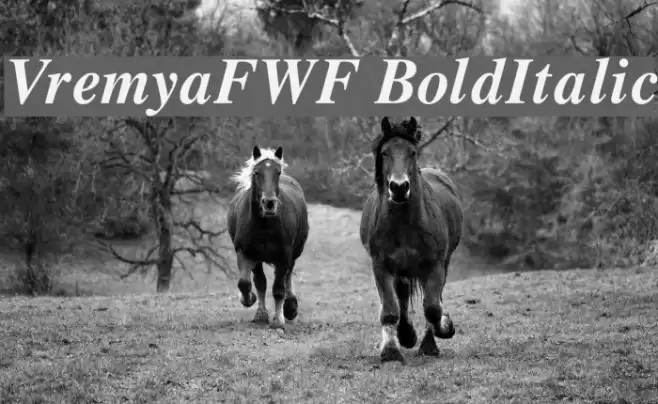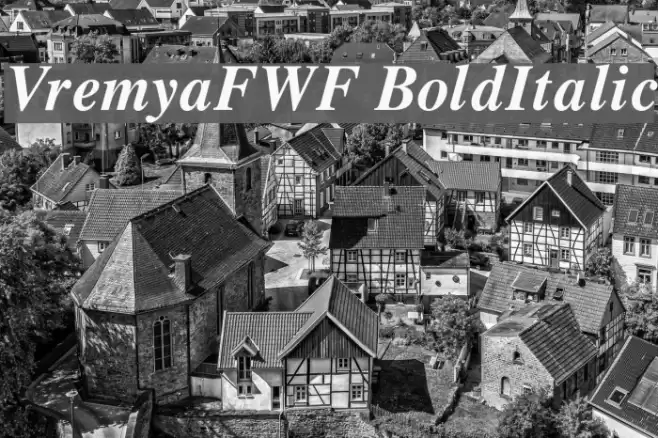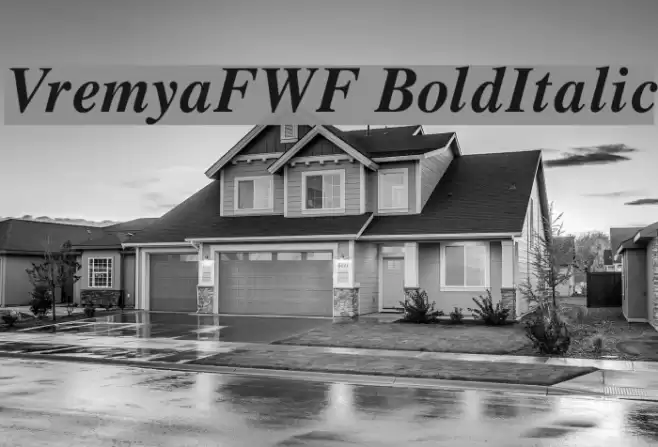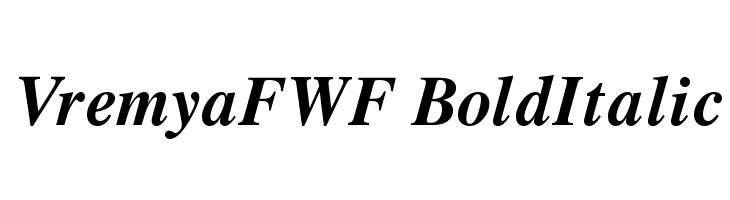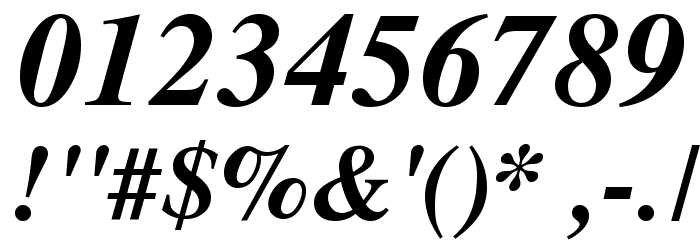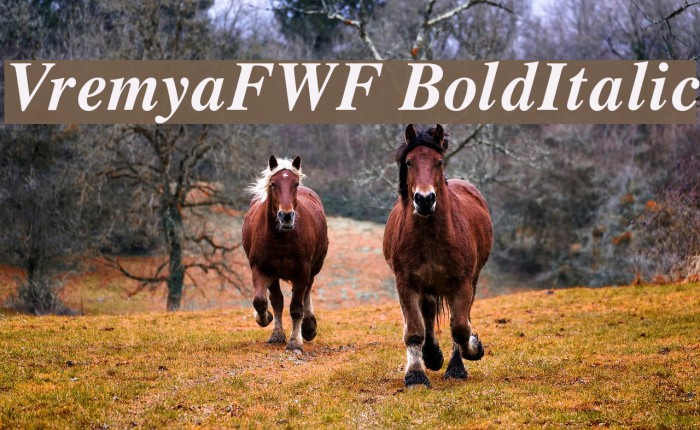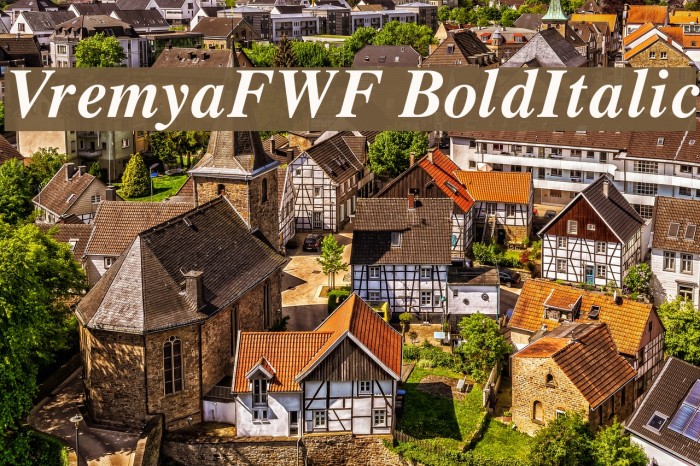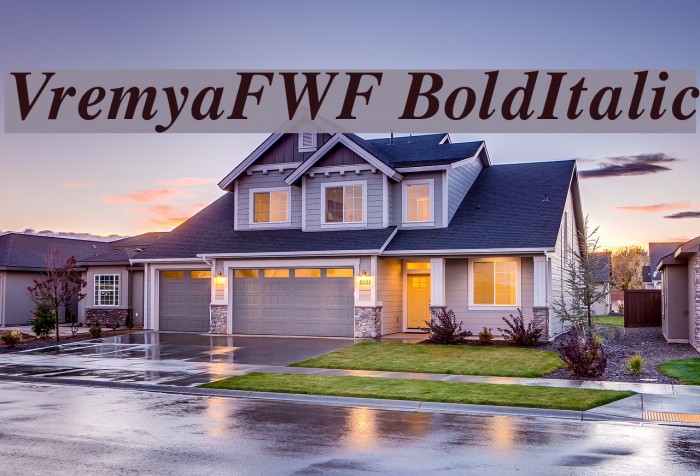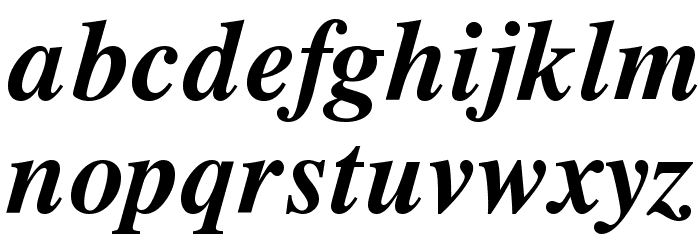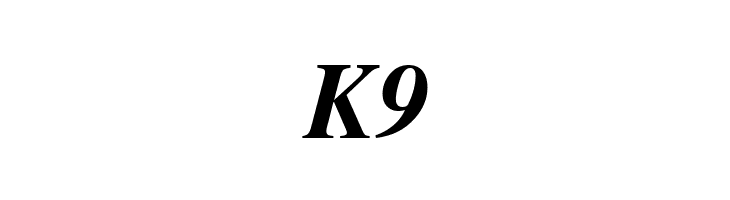
VremyaFWF BoldItalic Font
VremyaFWF BoldItalic Description
This font exhibits a classic serif style with a bold and italicized presentation. The characters are elegantly slanted, providing a sense of movement and sophistication. The serifs are pronounced, adding a traditional touch, while the bold weight ensures strong visibility and impact. The italic angle is consistent across all characters, enhancing the cohesive look. The numbers and special characters maintain the same stylistic features, ensuring uniformity throughout. This font is well-suited for projects that require a blend of classic elegance and modern boldness.
A bold, italic serif font with classic elegance and strong visibility from Uncategorized fonts.
- Proposed Projects: Ideal for book covers, formal invitations, branding materials, and editorial headlines.
- Overall Style: Classic
- Use Case: Headlines, Logos, Editorial